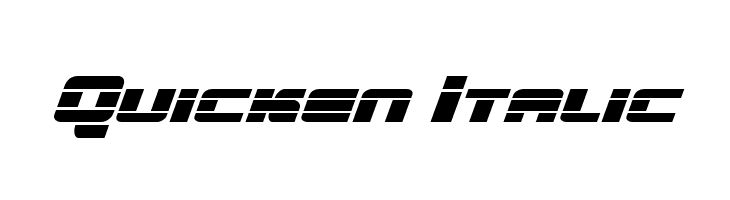
Ornamental font made of decorative border and divider elements.
A decorative symbol font with artifact and tribal-inspired pictograms.
A bold, geometric typeface with a modern and strong aesthetic.
A bold, distressed font with a grungy, urban style.
A decorative font with intricate patterns and a tribal motif.
A futuristic, italicized font with dynamic angles and smooth curves.
A decorative icon set of various gift boxes and presents.
A bold, playful font with rounded, bubbly characters.
A modern, extra condensed sans-serif font with medium weight and italic style.
A modern, condensed sans-serif font with an extra light italic style.
设计师偏爱 BorderElements, Artefakte, Kulturbolschewismus-Bold, Titr Old and Tsachi,因为其造型干净、适用范围广—— 从品牌识别到落地页、海报都能胜任。